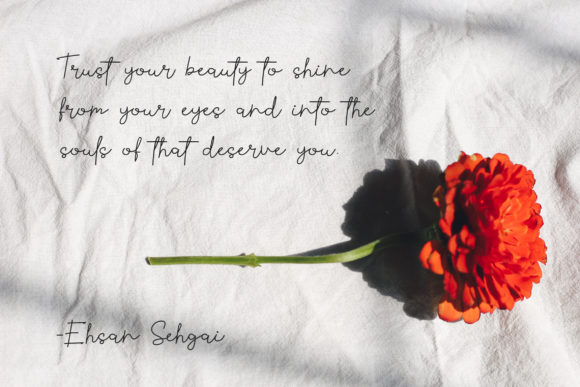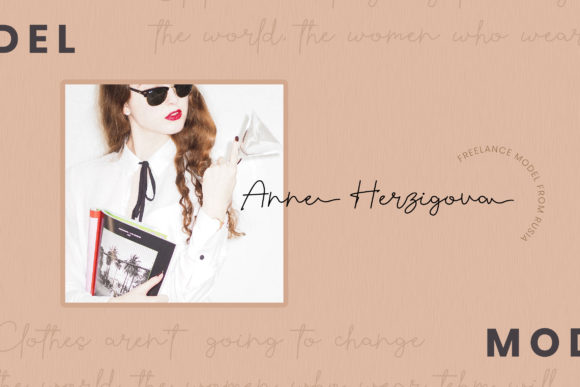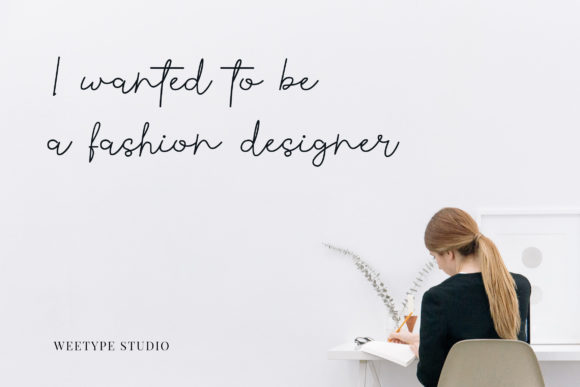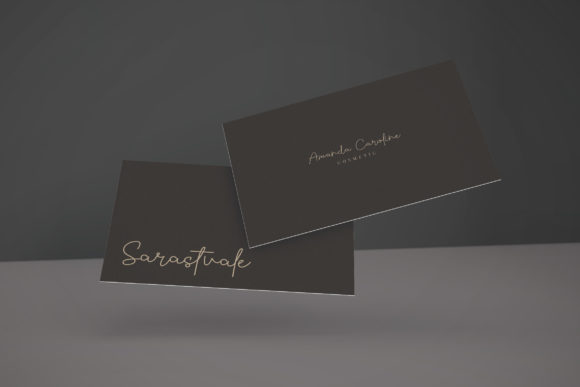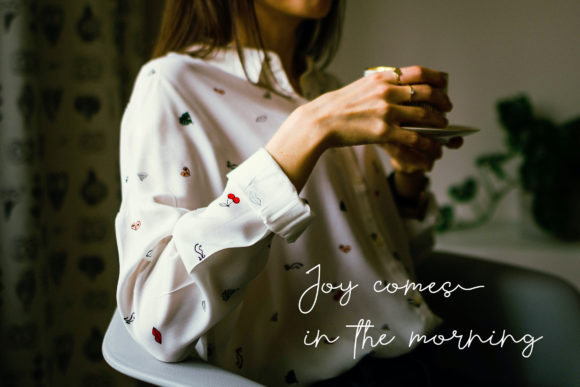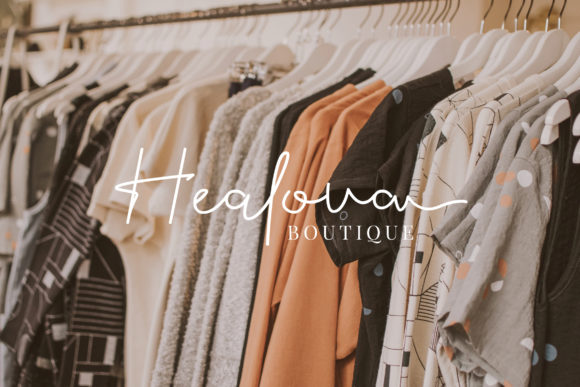
Introduction to Sarastvale Font Font
Fonts play a crucial role in design, and the Sarastvale Font font is a typeface that brings both character and versatility to any project. Whether you’re working on a branding project, a website, or a print design, the Sarastvale Font font offers a unique style that can elevate your work.
Sarastvale consists of a fashionable and sophisticated signature-style script with its own unique curves and an elegant inky flow.
It is perfect for photography, watermark, social media posts, advertisements, logos & branding, invitation, product designs, labels, stationery, product packaging, special events or anything that needs a handwritten taste .
Key Features of Sarastvale Font Font
Why Choose Sarastvale Font Font?
The Sarastvale Font font is more than just a typeface – it’s a design tool that helps you communicate your message with style and clarity. Its unique character set and versatile design make it suitable for a wide range of applications, from elegant invitations to bold headlines.
With its carefully crafted letterforms and balanced proportions, the Sarastvale Font font ensures readability and visual appeal across all mediums.
What makes Sarastvale Font font special?
The Sarastvale Font font stands out with its unique design, exceptional readability, and versatility across various design applications.